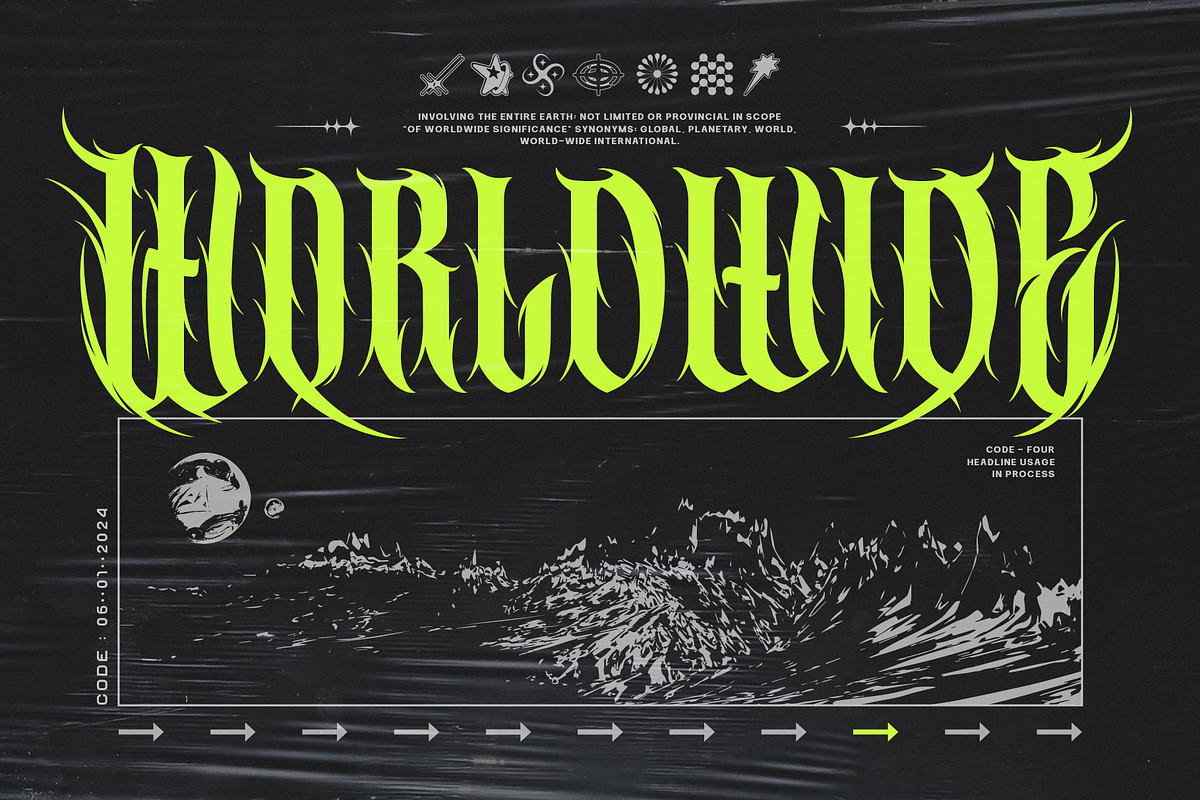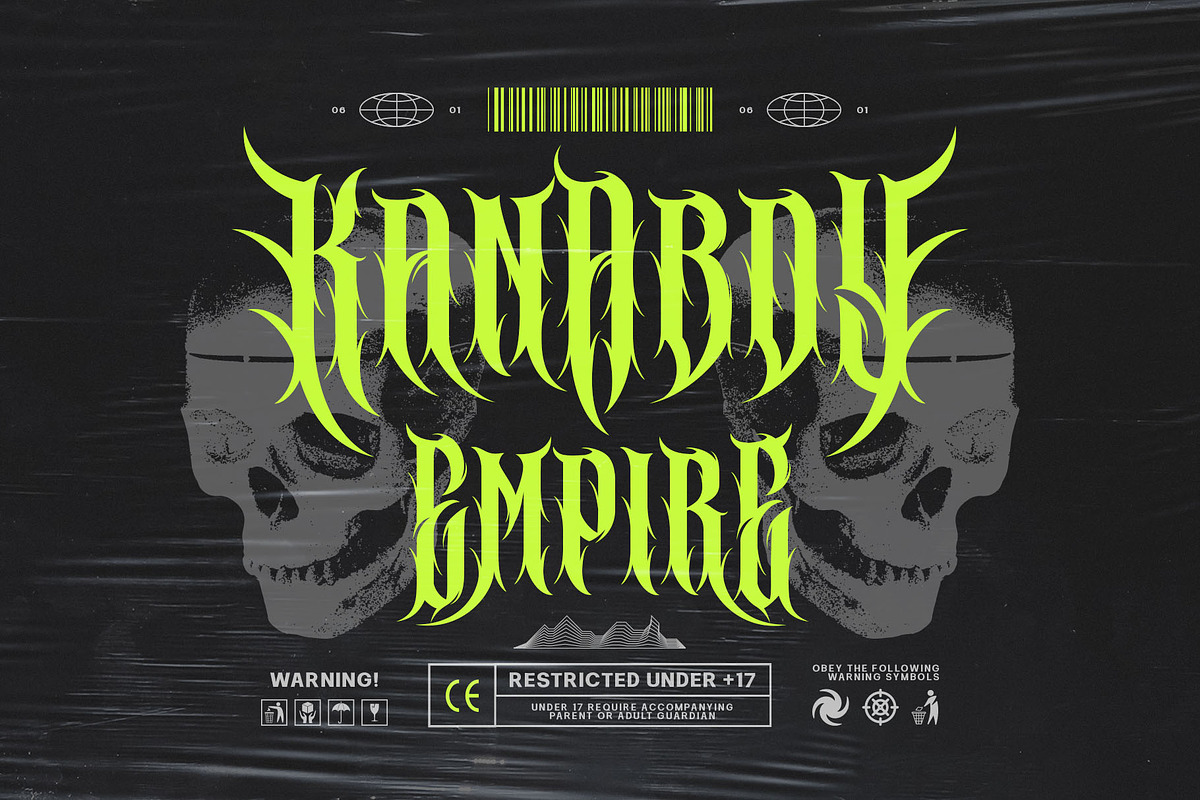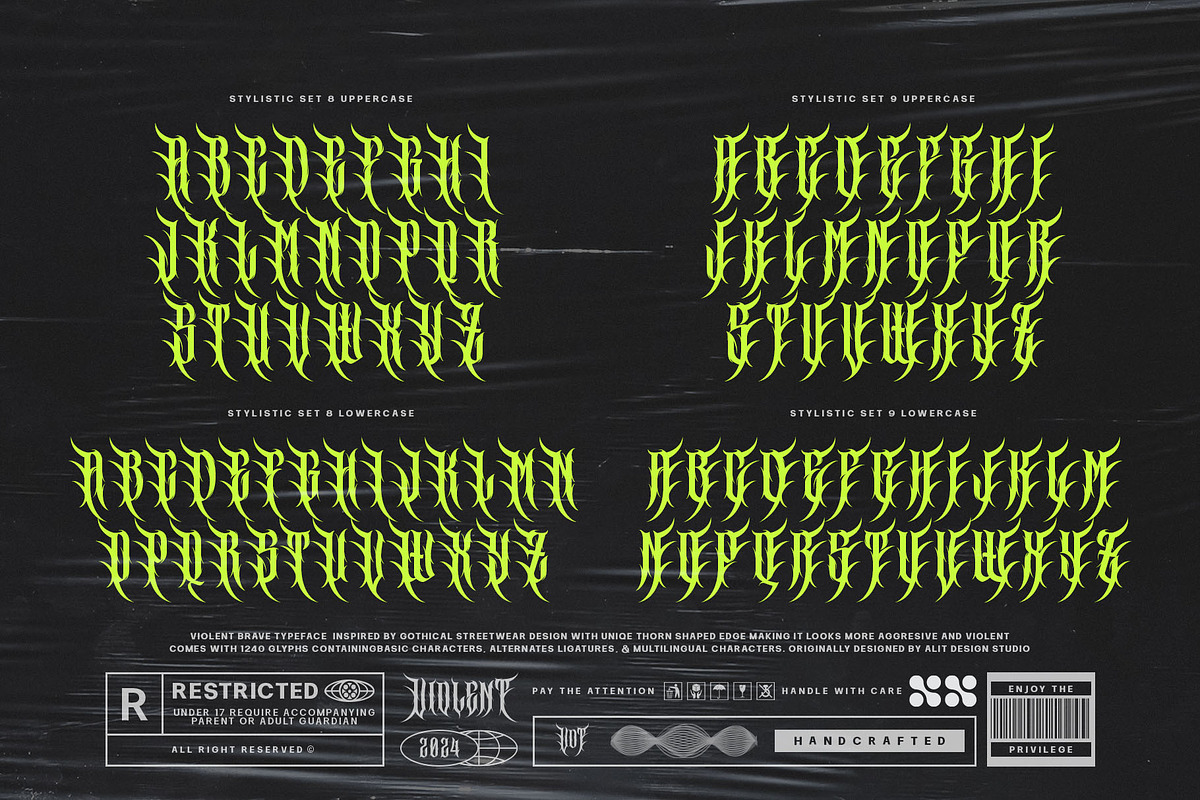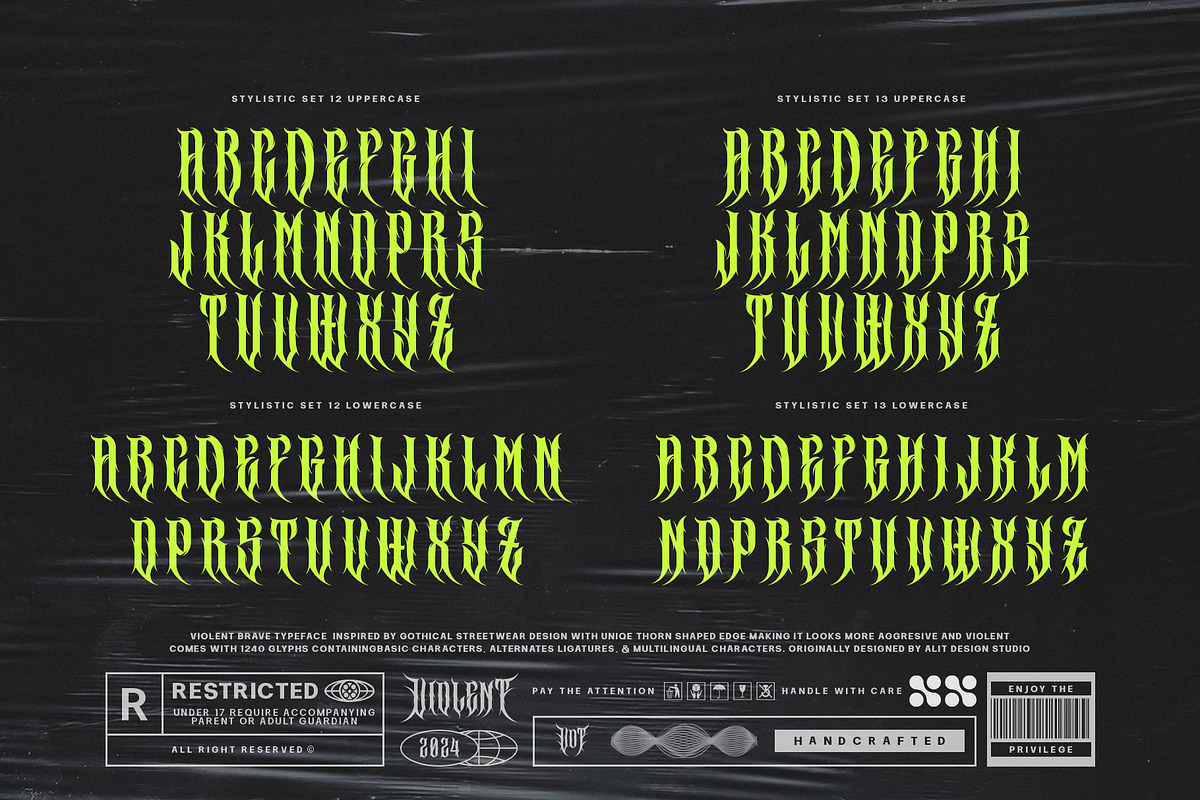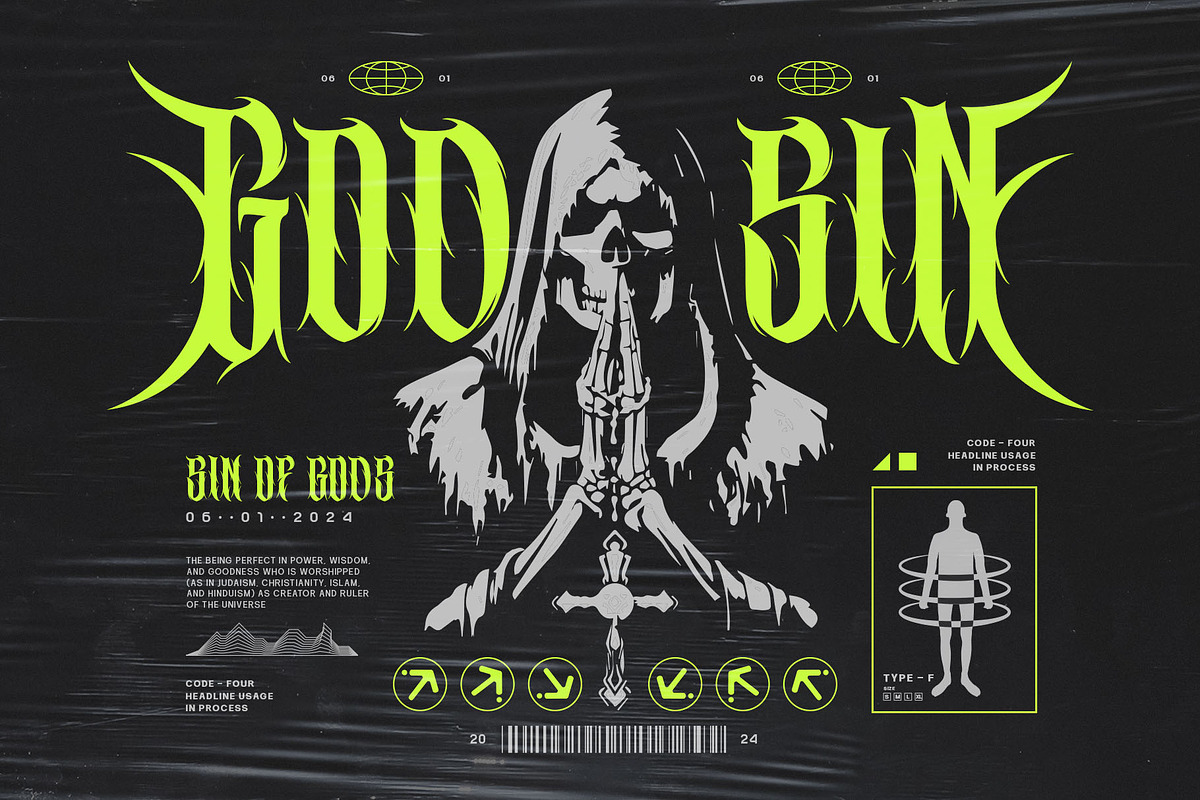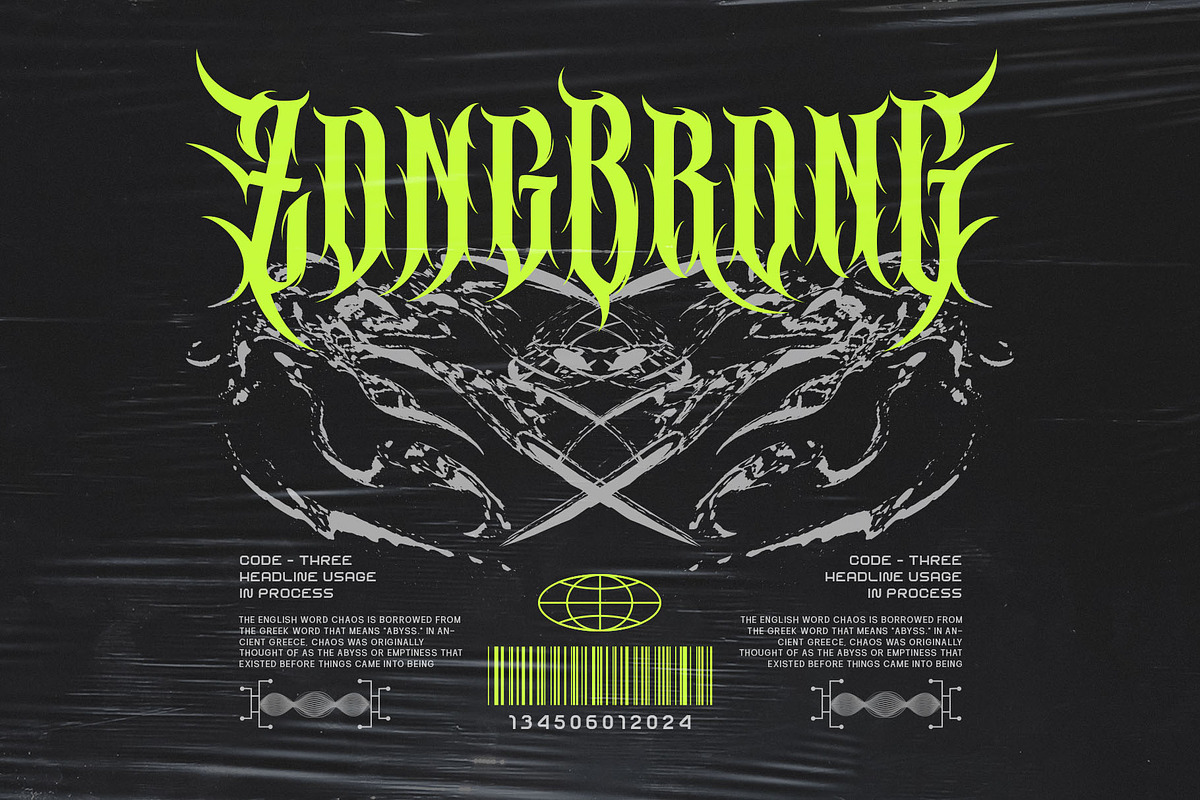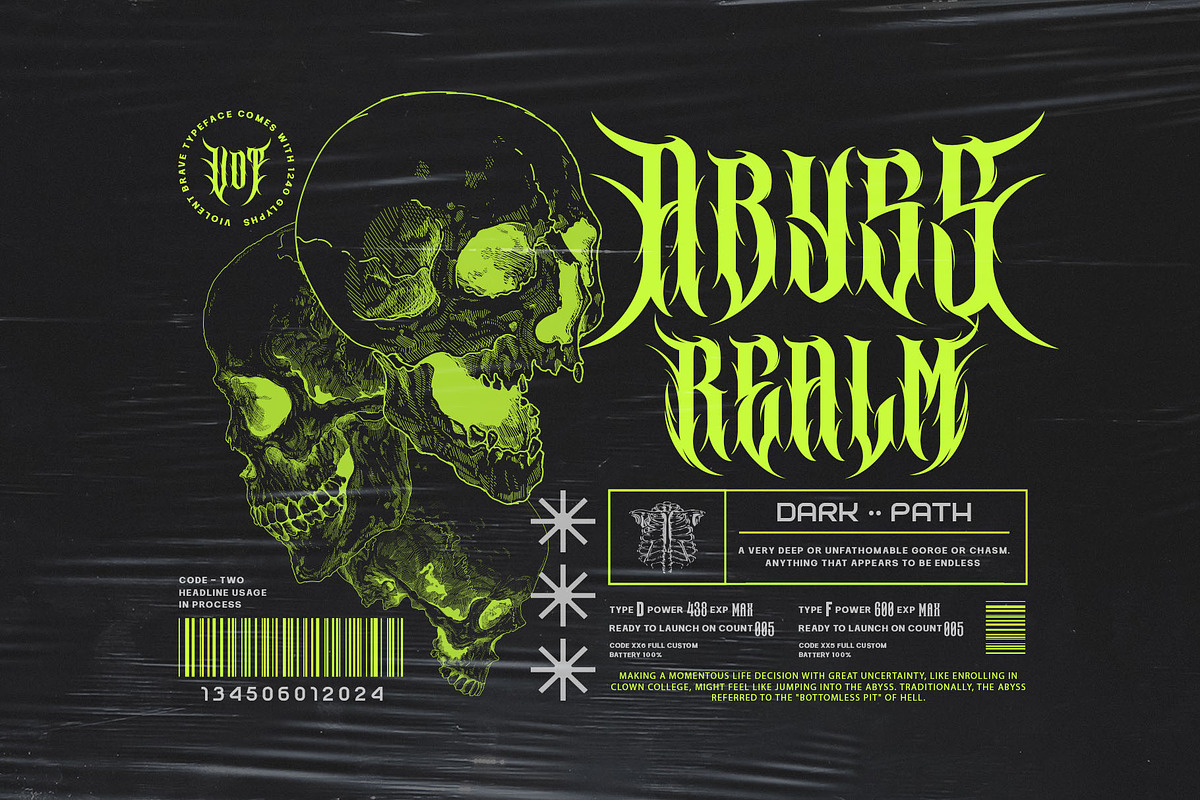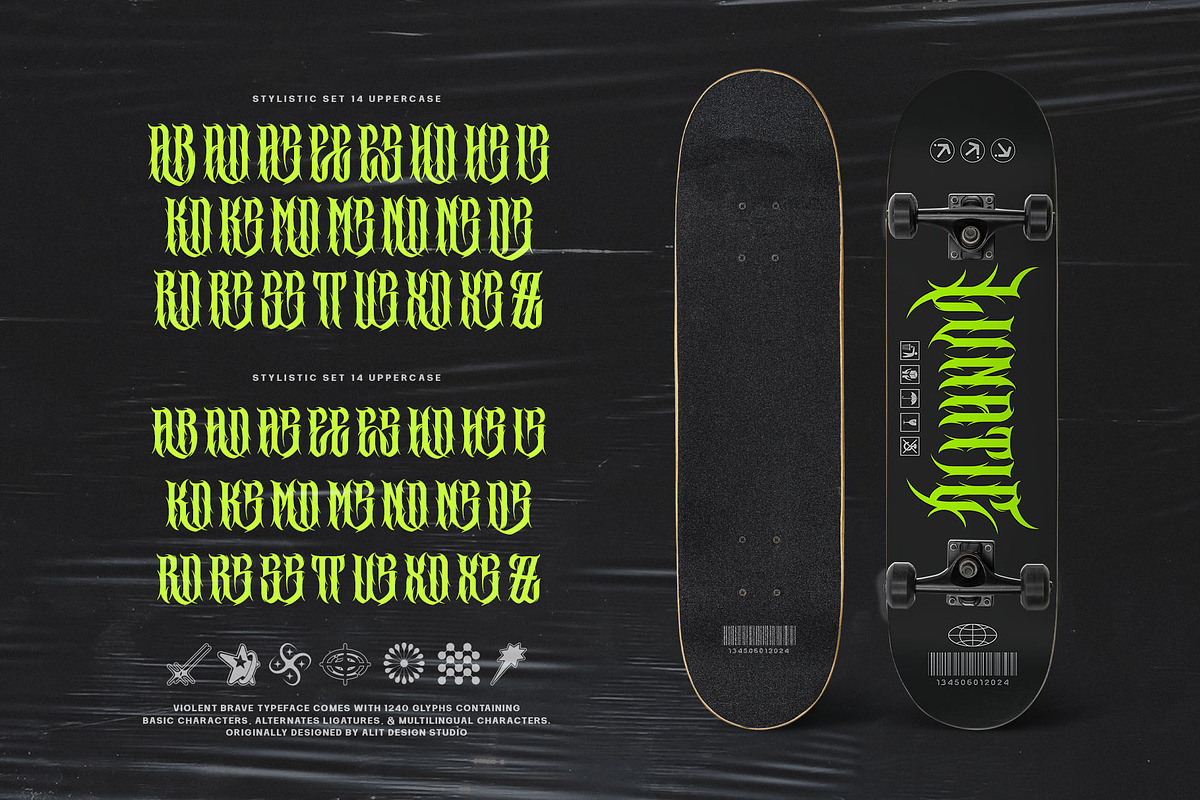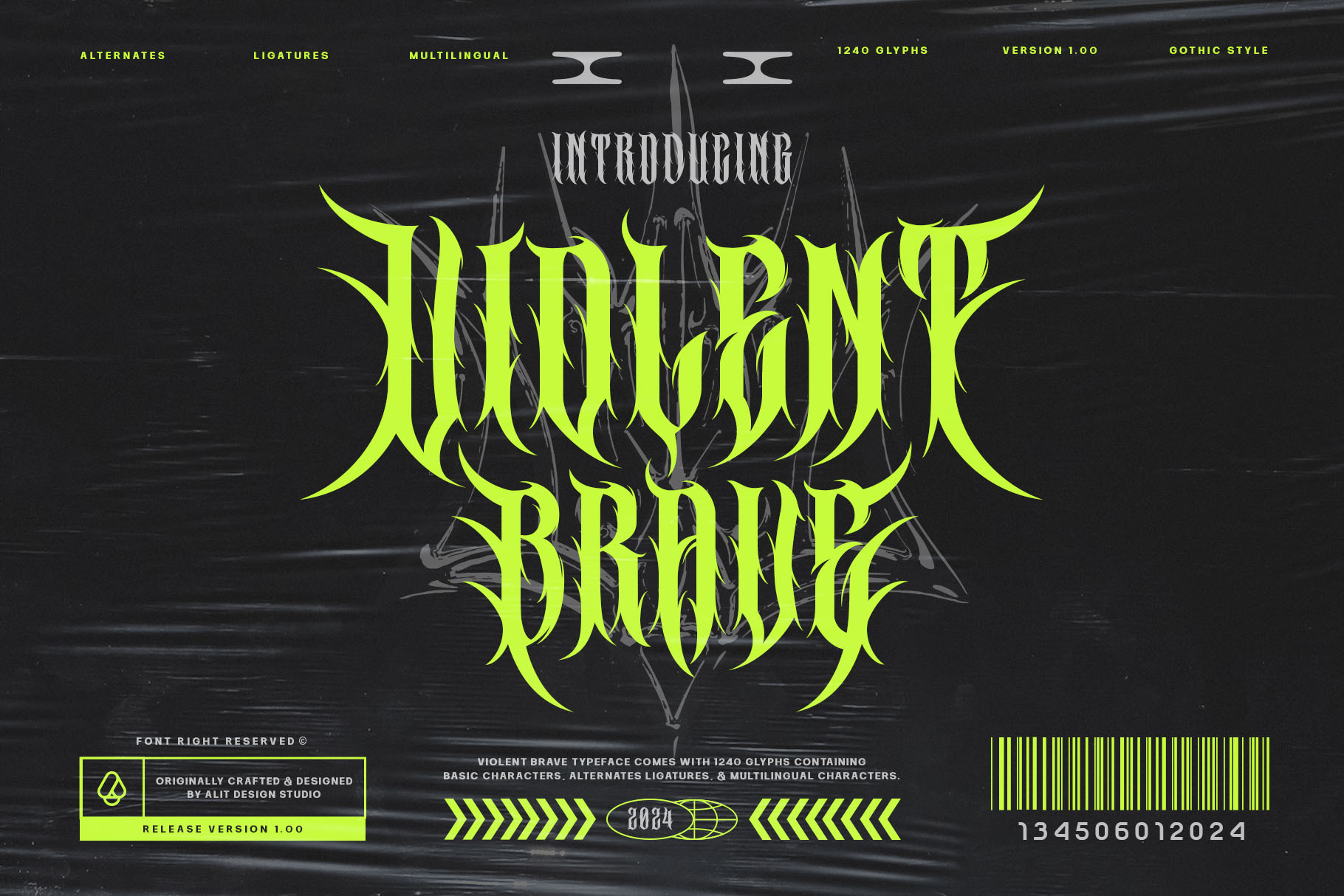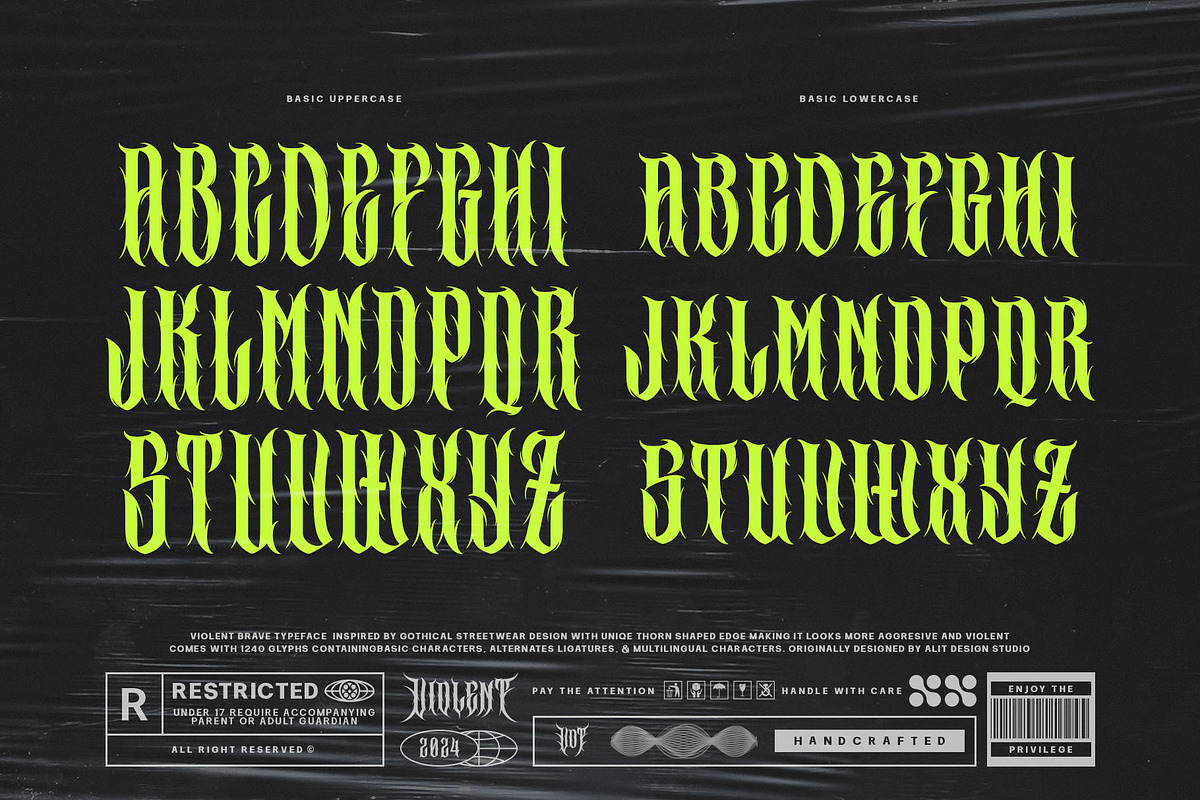
Violent Brave Brutalism Typeface
Introducing the "Violent Brave Brutalism Typeface" - a cutting-edge font that seamlessly merges modern aesthetics with a fearless and commanding metal concept. This typographic masterpiece is designed for those who seek to make a bold statement with their visual communication.
Design Concept: The Violent Brave Brutalism Typeface exudes an uncompromising and audacious personality. Inspired by the world of heavy metal, the font features fierce and firm spines, capturing the essence of raw power and strength. The design strikes a perfect balance between modernity and bold brutality, making it a standout choice for those who crave a unique and impactful typographic experience.
Style Characteristics: The font boasts a distinctive metal-inspired aesthetic with sharp edges and robust letterforms. Each character is meticulously crafted to convey a sense of aggression and intensity, creating a visual impact that leaves a lasting impression.
Glyph Diversity: With an expansive set of 1240 glyphs, this typeface goes beyond the ordinary. It includes ligatures, alternates, and a comprehensive multilingual character set. The ligatures and alternatives add fluidity and variation to the text, allowing for a dynamic and expressive display of content. The multilingual PUA Unicode support ensures compatibility across various languages, making it a versatile choice for global communication.
Usage Scenarios: Ideal for graphic designers, musicians, and artists who want to inject a dose of unapologetic boldness into their projects. Whether used in album covers, posters, merchandise, or any other creative endeavor, the Violent Brave Brutalism Typeface is designed to command attention and convey a sense of fearless individuality.
- Modern and bold metal-inspired design.
- Fierce and firm spines for a powerful visual impact.
- 1240 glyphs with ligatures and alternates for versatility.
- Multilingual PUA Unicode support for global accessibility.
Incorporate the Violent Brave Brutalism Typeface into your projects and let your words roar with the intensity of a metal anthem, making a lasting impression on anyone who encounters your design.